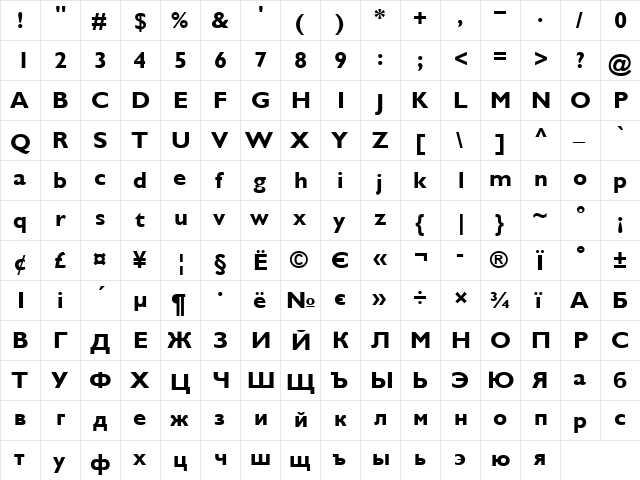
Gals Bold
Design Context for Gals Typeface
Gals takes a measured approach to typography — its balanced proportions and neutral character make it a reliable workhorse for both digital and print work. Its bold stroke weight gives it real presence on the page.